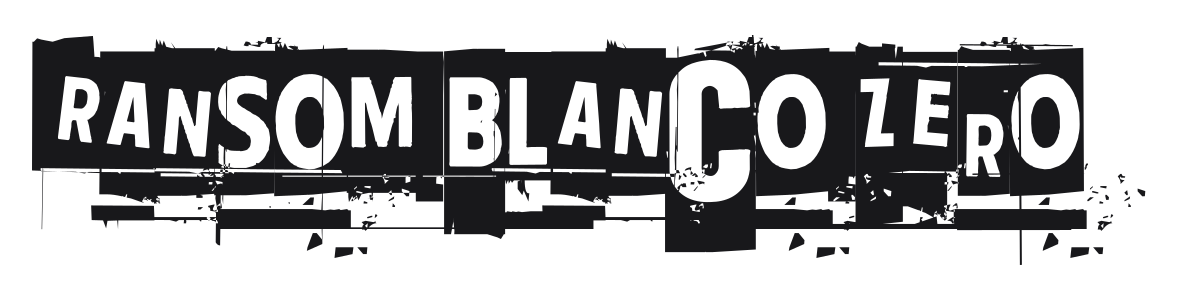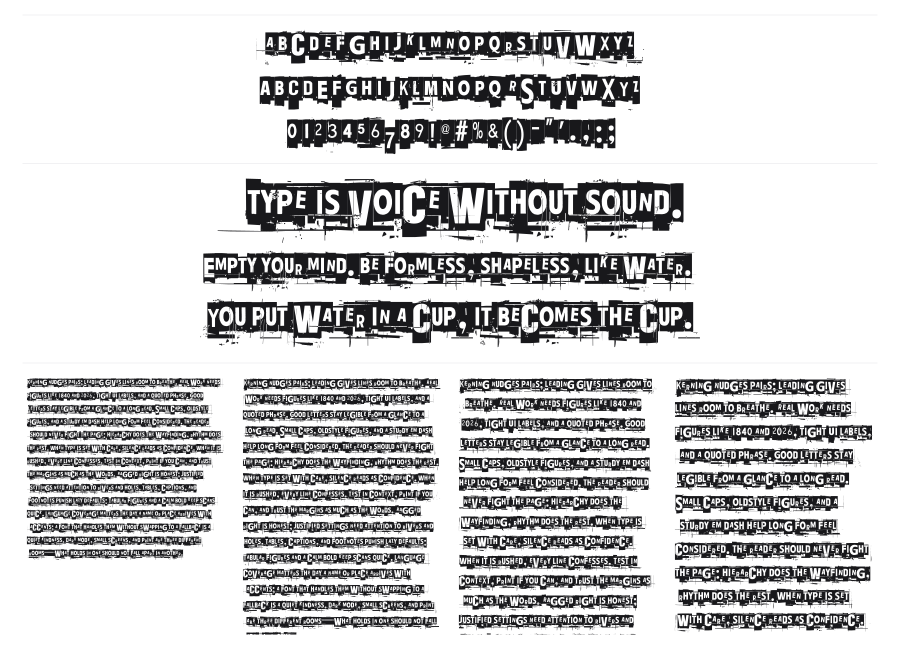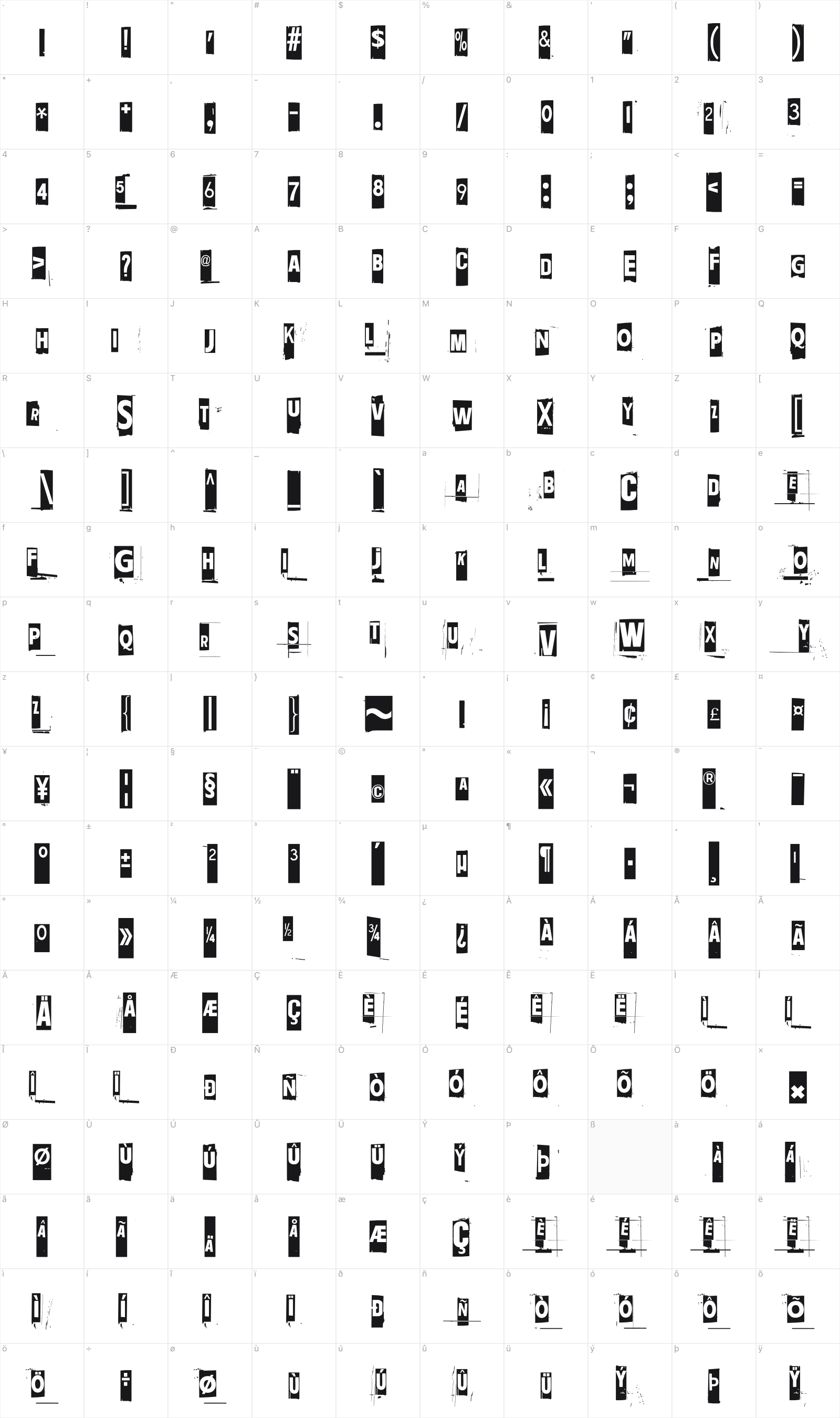
Ransom Blanco Zero
Ransom Blanco Zero is a cut-and-paste collage font that replicates the classic anonymous ransom-note aesthetic with rough inked blocks, ink splatter, and wildly mismatched character proportions. Letters sit on shifting baselines inside black-stained rectangles, each one looking clipped from a different source. The result is deliberately chaotic and immediately readable as a visual statement.